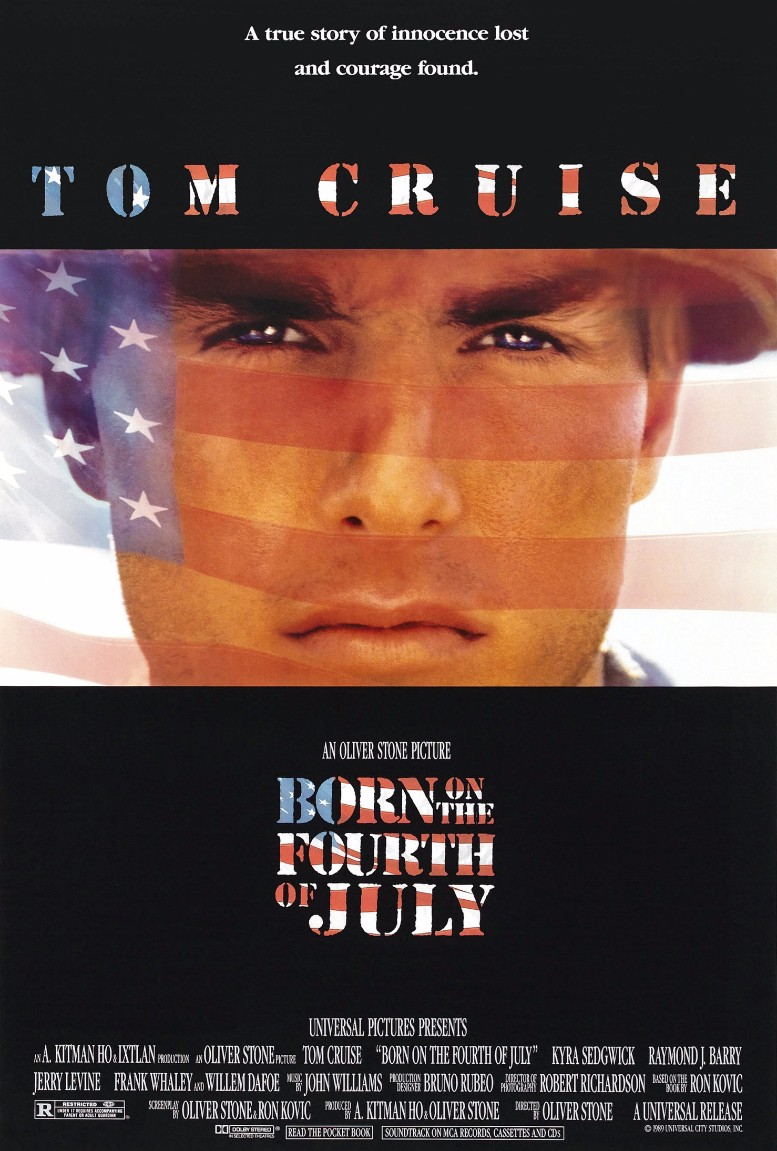
Born on the Fourth of July Font
Fonts in UseBorn on the Fourth of July is a 1989 film directed by Oliver Stone, based on the autobiography of Vietnam War veteran Ron Kovic. It follows the journey of Kovic, played by Tom Cruise, as he goes from a patriotic young man to a disillusioned anti-war activist after being paralyzed in combat.
The film title "Born on the Fourth of July" uses Gerry Powell's Stencil D font, featuring uppercase letters with rounded edges and thick strokes resembling stenciled alphabets on crates.